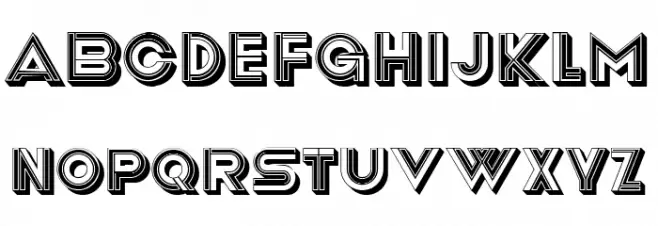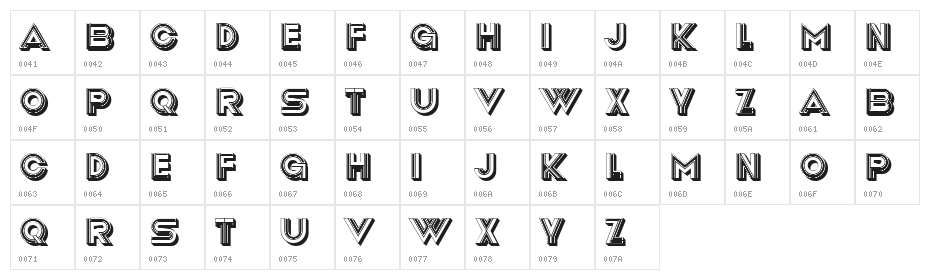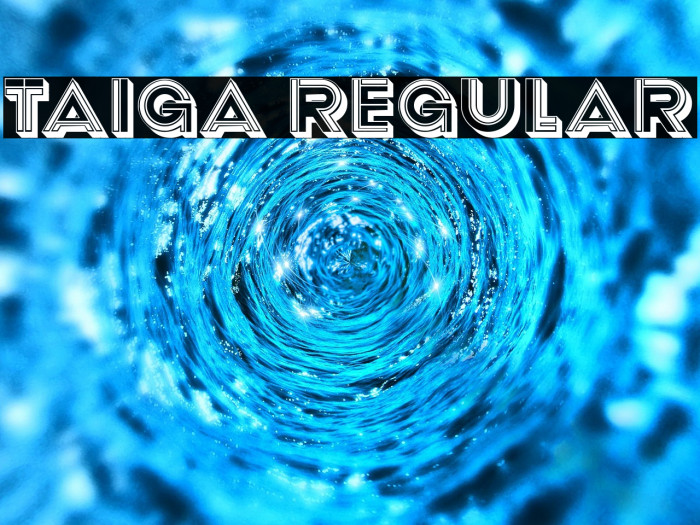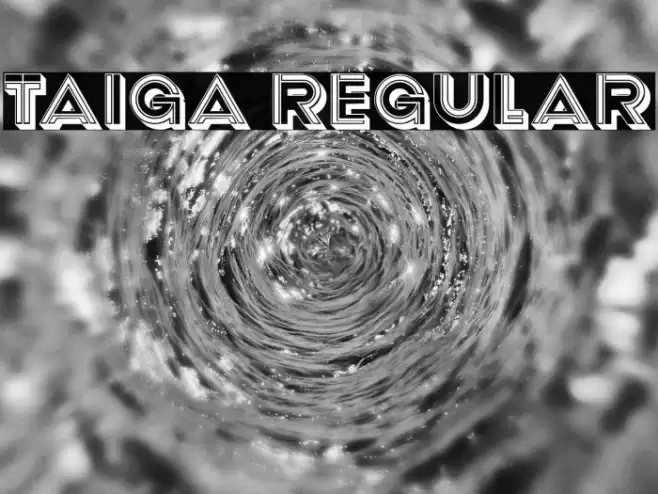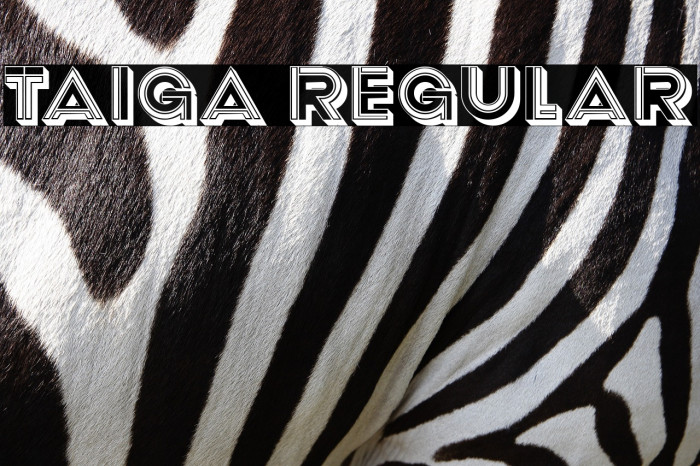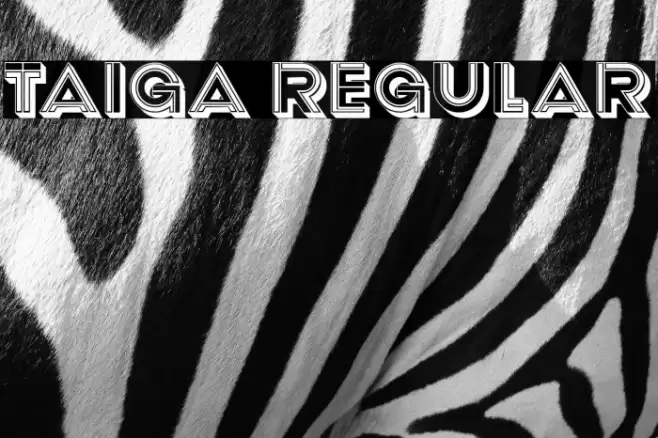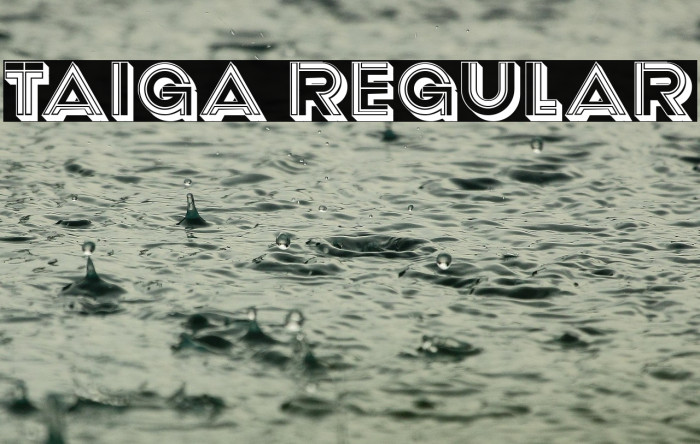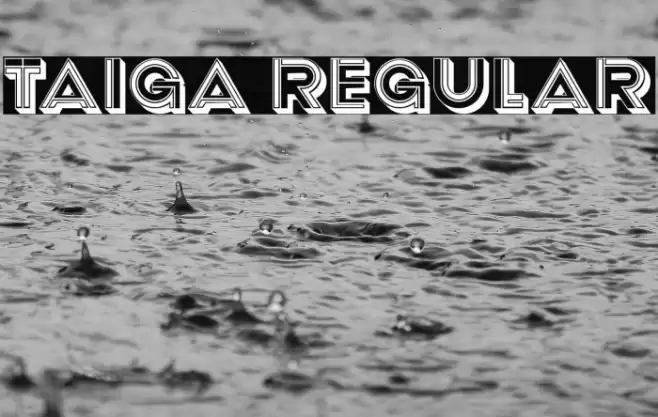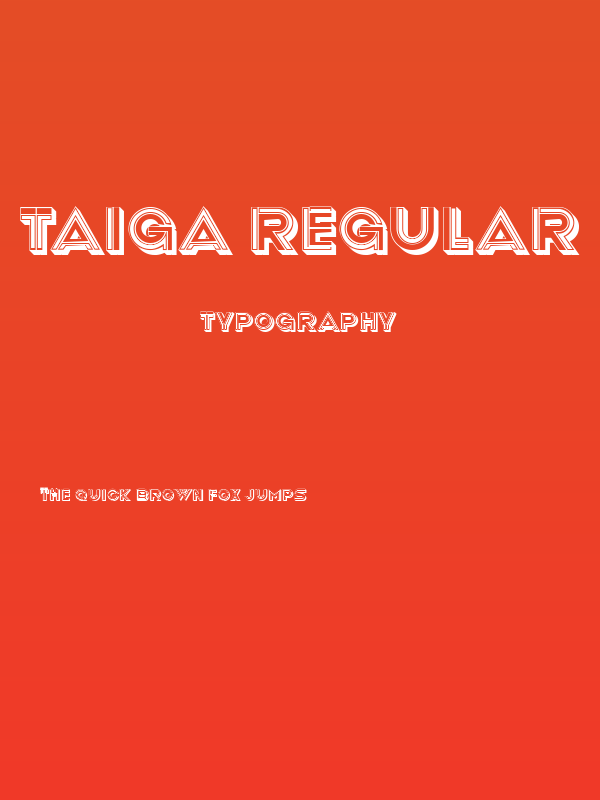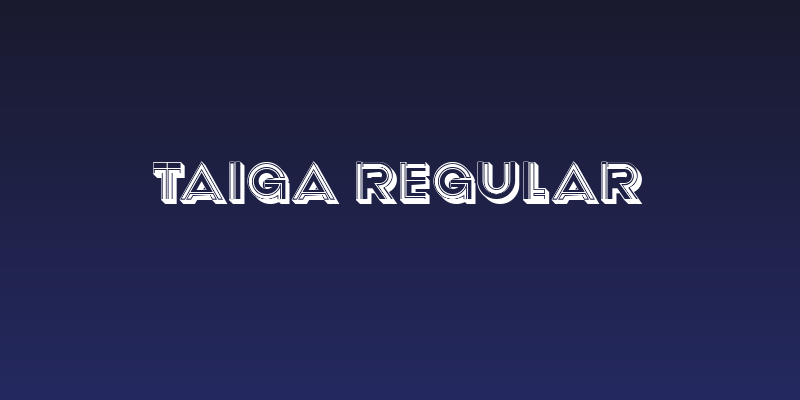
Taiga Regular Font
Taiga Regular Description
This font features a bold and striking design with a three-dimensional effect created by layered outlines. The uppercase letters are crafted with precision, showcasing a geometric and structured form. The font's unique style is characterized by its decorative elements, which add depth and visual interest. The letters are evenly spaced, ensuring readability while maintaining a strong visual impact. This typeface is ideal for making a statement in any design project, offering a modern twist on classic typography.
| Proposed Projects | Ideal for headlines, posters, branding, and any project that requires a bold and eye-catching typeface. |